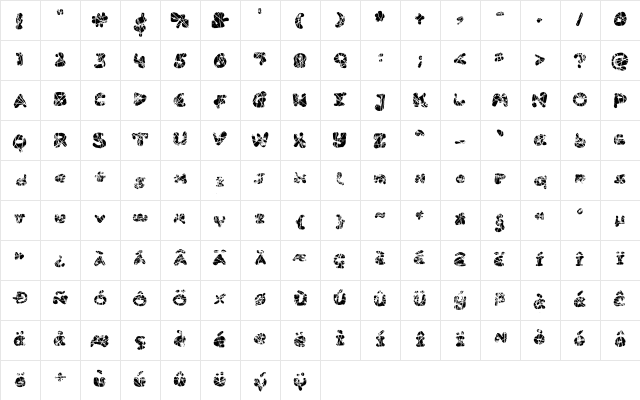
Area 51 UFO Apocalypse Medium
Design Context for Area 51 UFO Apocalypse Typeface
Area 51 UFO Apocalypse is a composed and adaptable typeface that performs quietly and consistently across a wide range of design contexts.